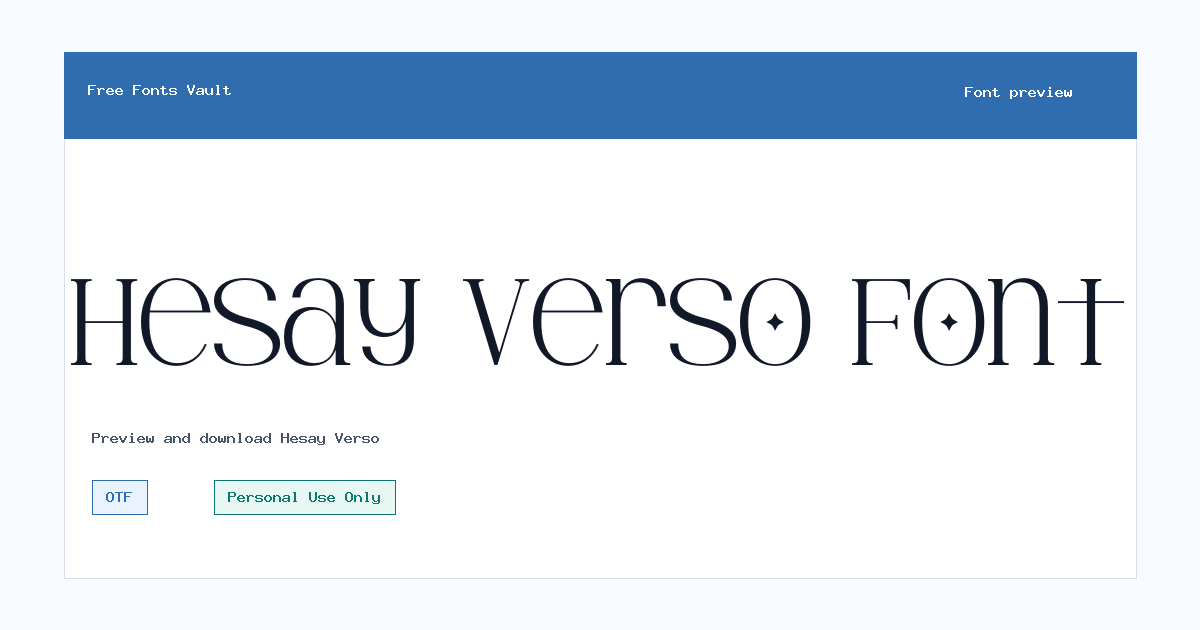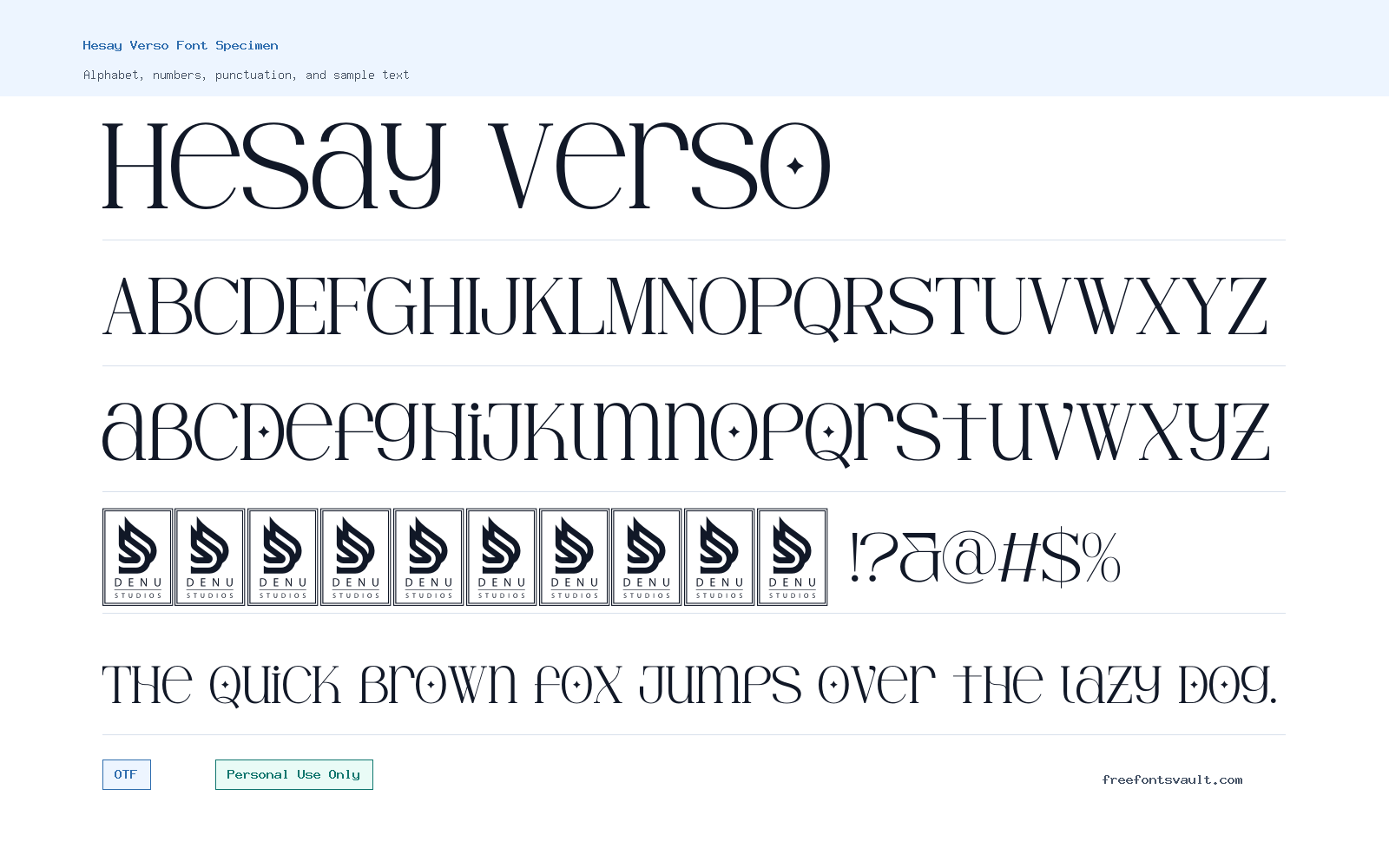
Hesay Verso
- Designer Dede Nugraha
Hesay Verso font.
Hesay Verso is a serif display font with a polished, decorative feel, best tested in short text where its letter shapes can stand out clearly.
About Hesay Verso
Hesay Verso works best as a display typeface rather than a long-reading text font. Its serif styling gives it a more editorial and refined look, making it a practical choice for titles, poster lines, invitation-style layouts, logo drafts, packaging concepts, and social media graphics. Because only a regular style is listed, it is worth using size, spacing, color, and layout contrast instead of relying on multiple weights. Try it in the preview box with the exact words you plan to use, especially if the design depends on a brand name, a short headline, or a decorative phrase.
For logo work, Hesay Verso is better suited to early concepts, personal projects, and presentation mockups unless you have confirmed the right commercial license. Test the font in uppercase, lowercase, and mixed-case settings before choosing it for a final design. Serif display fonts can look elegant at large sizes but may lose clarity in dense paragraphs, small navigation labels, or mobile UI text. If you use it for a poster or web mockup, pair it with a simple sans serif for body copy so the main message stays readable. Keep the spacing generous, avoid crowding the letters, and check punctuation and numbers if your layout needs prices, dates, or product names.
- Serif display style suited to headings, titles, and short decorative text
- Useful for logo drafts, posters, invitations, packaging concepts, and social graphics
- Best paired with a clean, restrained text font for readable supporting copy
- Poster headlines and event title designs
- Editorial-style hero text and web mockup headings
- Invitation cards, quote graphics, and decorative short phrases
- Packaging mockups, mood boards, and presentation visuals
Use Hesay Verso where the text is short and visible. Start with headlines, names, initials, or a single strong phrase, then adjust tracking and line spacing by hand. For posters and web mockups, place it above a plain sans serif or readable serif used for descriptions, buttons, dates, and other small text. Always test accented characters, numbers, and punctuation if your final design needs them.
What kind of font is Hesay Verso?
Hesay Verso is a serif display font. It is most useful for short, prominent text such as titles, logo drafts, posters, and decorative layouts.
Is Hesay Verso good for body text?
It is better for display text. For paragraphs, captions, menus, or small web text, pair it with a simpler font that is easier to read at smaller sizes.
Who designed Hesay Verso?
Dede Nugraha is listed as the designer.